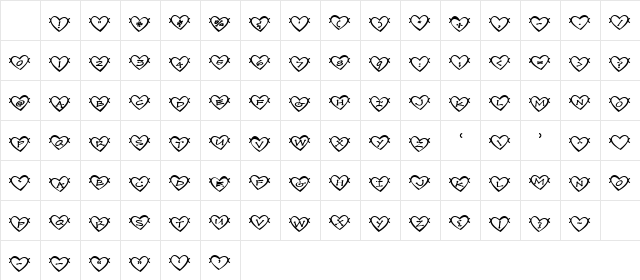
LD LoveLinks Regular
Design Context for LD LoveLinks
LD LoveLinks is a composed and adaptable typeface that performs quietly and consistently across a wide range of design contexts.